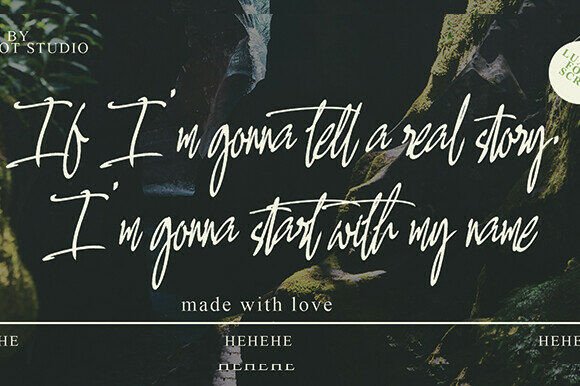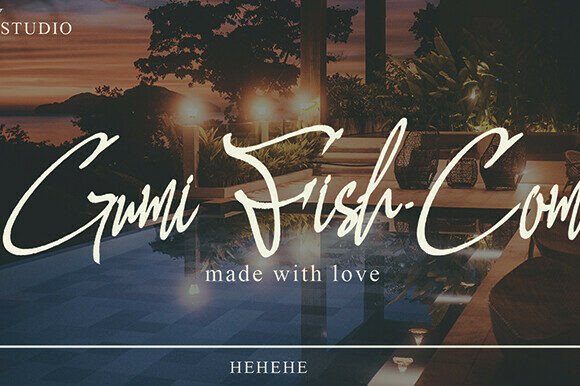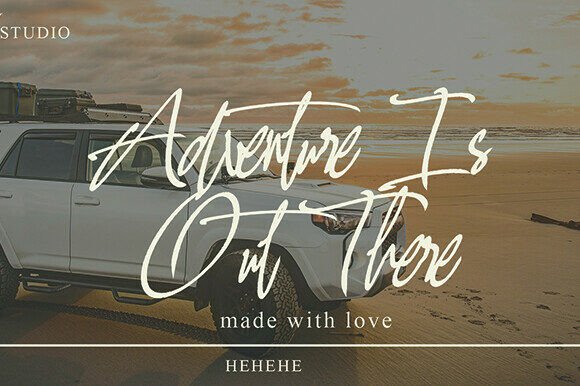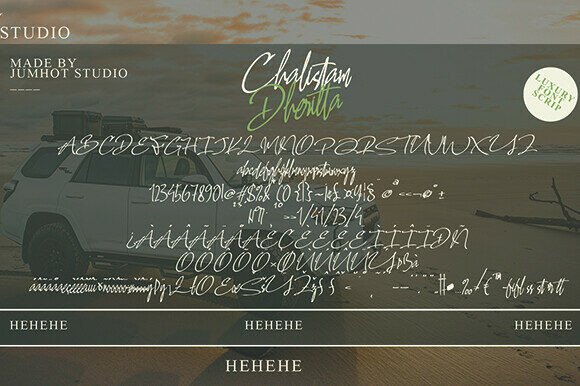
Unlocking the Art of Elegant Typography
As a designer, have you ever been stuck trying to convey a sense of sophistication and refinement in your work? You’ve scoured through countless fonts, only to find that they either feel too corporate or too playful. It’s a delicate balance to strike, but one that can make all the difference in capturing your audience’s attention.
Enter the Chalistam Dheritta Font, a stunning script font that embodies the perfect blend of elegance and modern charm. This beautifully crafted font is designed to evoke the fluidity of hand-drawn calligraphy, making it a versatile choice for a wide range of design applications, from logos and invitations to packaging and social media graphics.
With its polished details and natural flow, the Chalistam Dheritta Font is a valuable addition to any designer’s toolkit, offering a level of sophistication and visual appeal that’s hard to find elsewhere.
Key Features of Chalistam Dheritta Font
- Unique Characteristics: The Chalistam Dheritta Font features a unique blend of traditional and modern elements, with intricate details and ornate flourishes.
- Font Style: The font is available in both regular and bold styles, allowing for a range of visual effects and emphasis.
Chalistam Dheritta Font Review
Overall, I found the Chalistam Dheritta font to be an interesting and unique addition to any design project. Here are some of its standout features:
- ✨ Elegant script style that adds a touch of sophistication to any text.
- ✨ Highly customizable, allowing designers to adjust line width, spacing, and other parameters to suit their needs.
- ✨ Excellent for use in formal invitations, weddings, or other special occasions.
- ⚠️ The font may not be suitable for all types of text, as it can be difficult to read in small sizes or when used for large blocks of text.
- ⚠️ Some users may find the font’s style to be too ornate or distracting, depending on the design context.
- ⚠️ Limited language support, which may be a concern for designers working on multilingual projects.
In my opinion, the Chalistam Dheritta font is a great choice for designers who want to add a touch of elegance and sophistication to their projects. However, it’s essential to carefully consider the font’s limitations and ensure that it’s used in a way that complements the overall design.
For optimal results, use the Chalistam Dheritta font in bold or italic styles to add emphasis to your text.
The Chalistam Dheritta font is ideal for:
Event branding and signage
Food and beverage labels